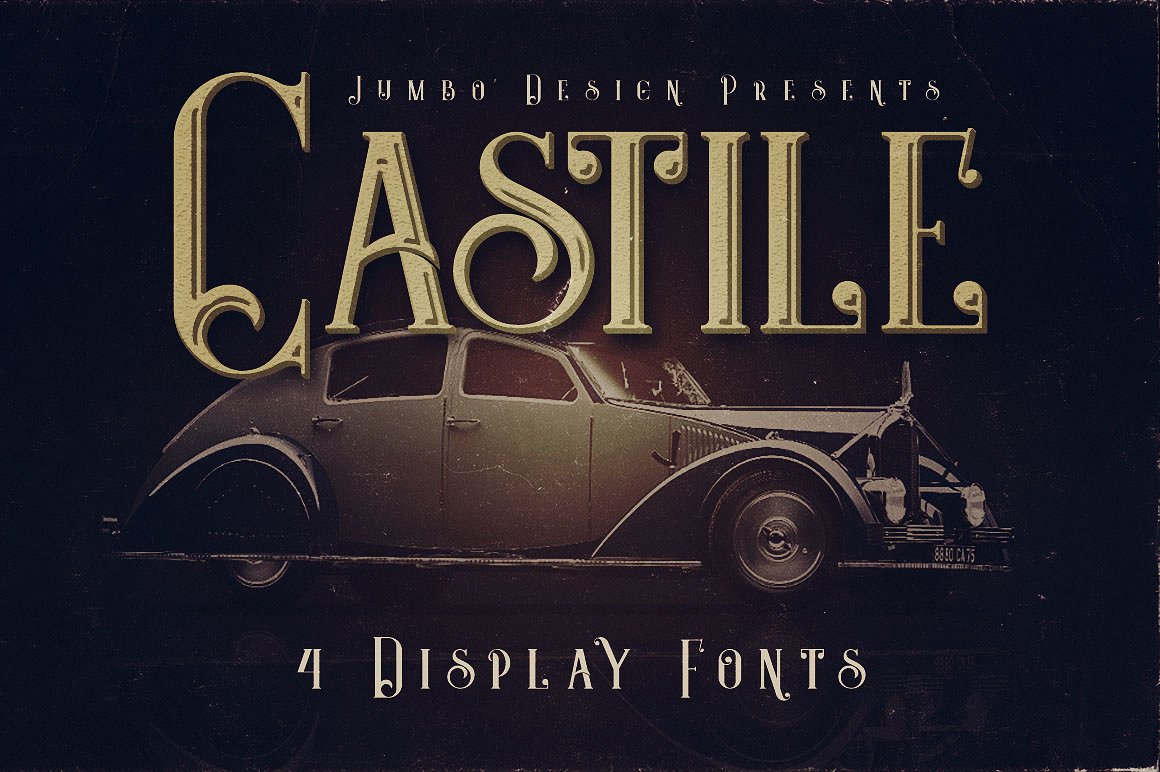
Castile Display Font
Unique artdeco, vintage or retro style custom sans serif font with 4 styles: regular and grunge, inline and inline grunge!
| Designer Name: | Peter Olexa |